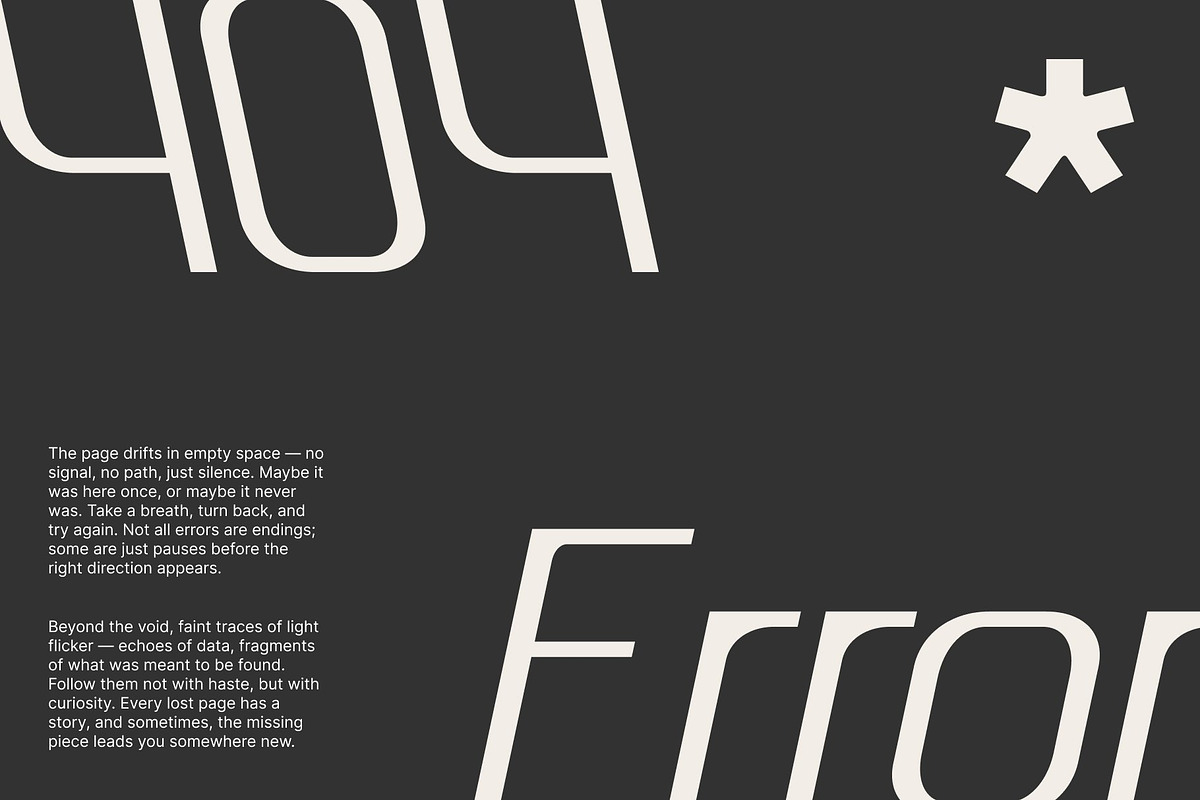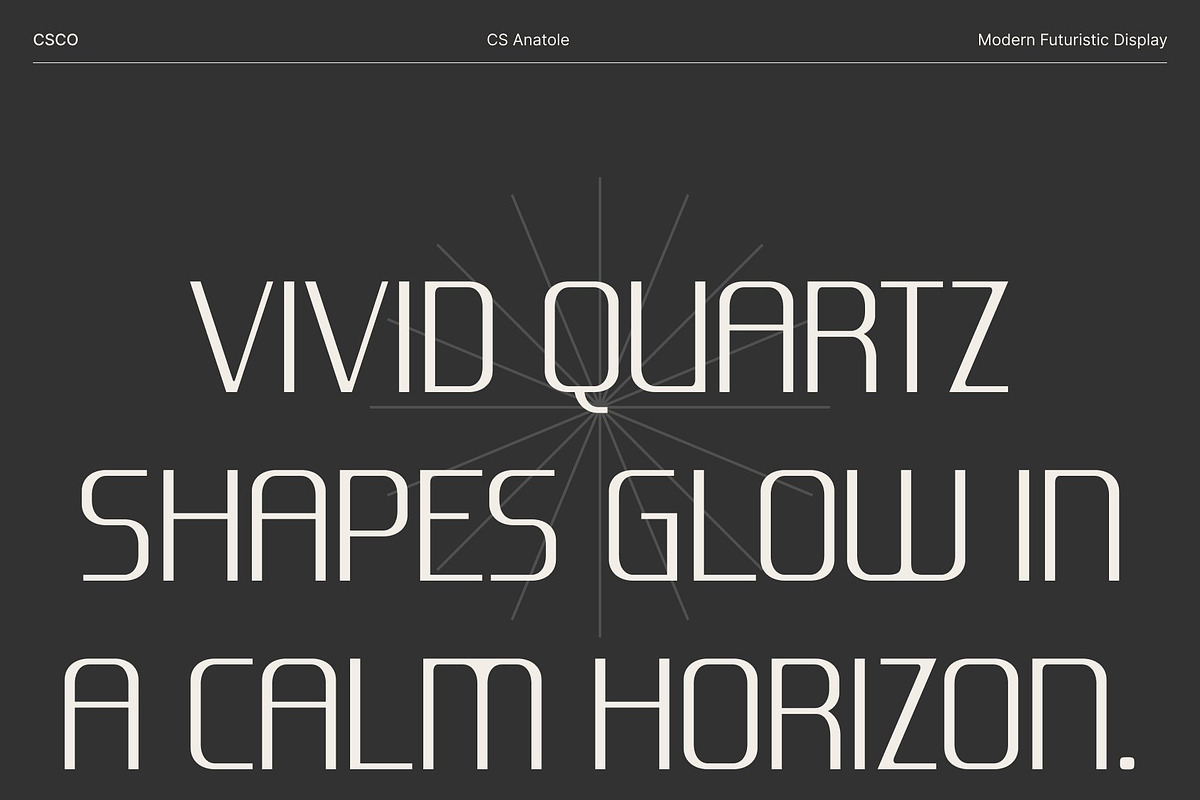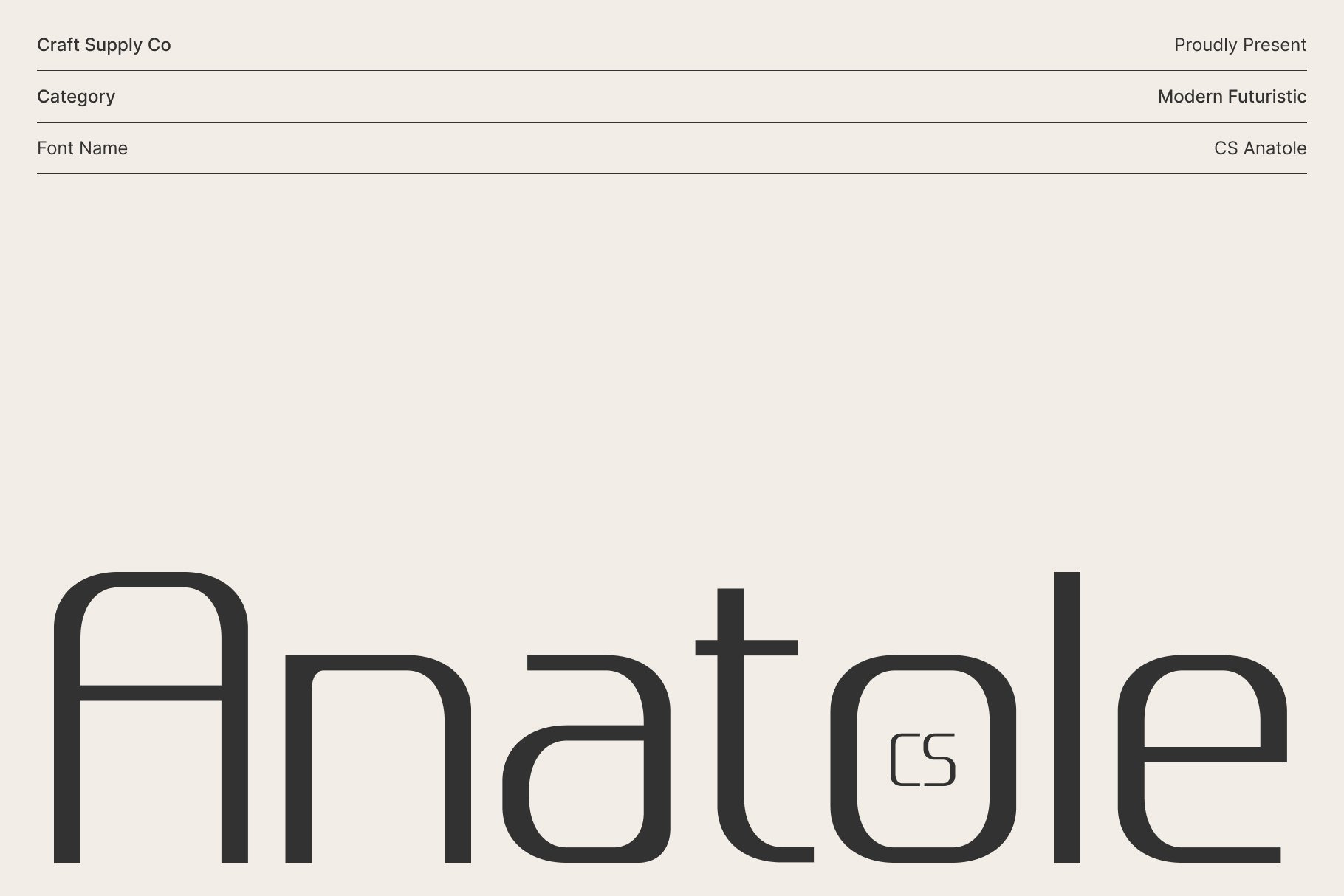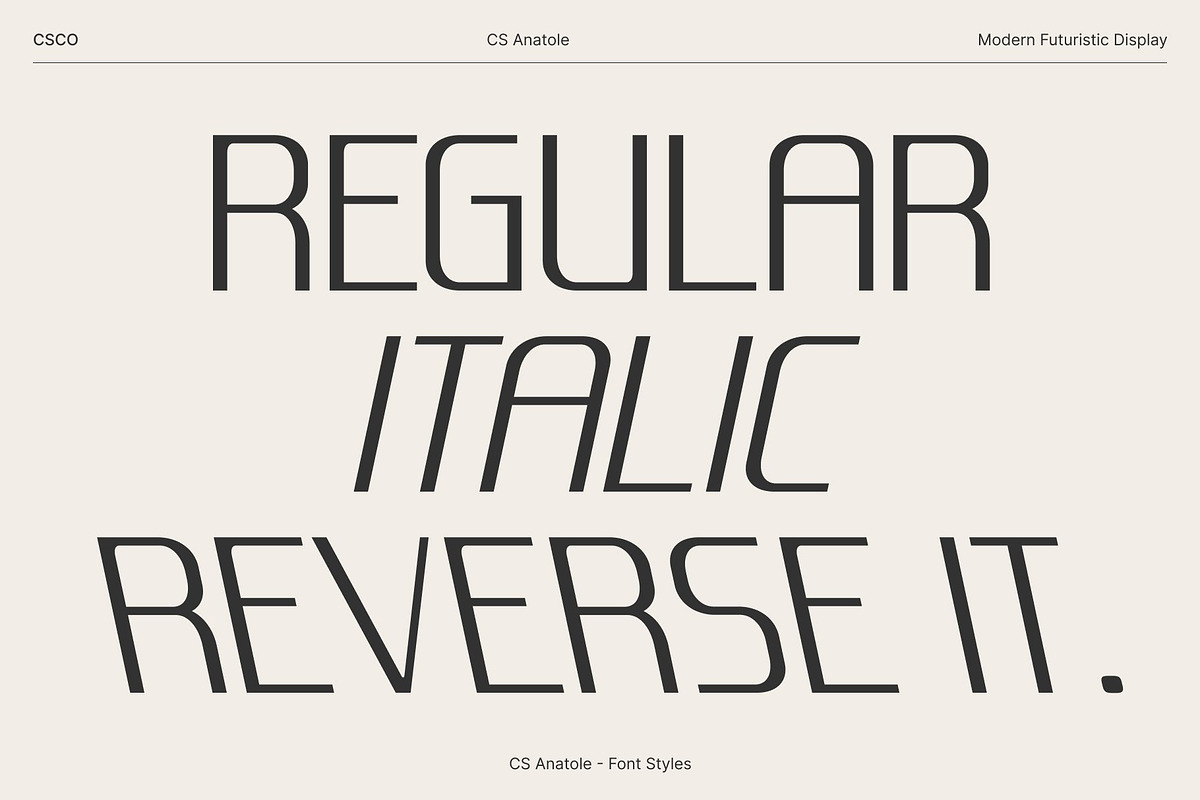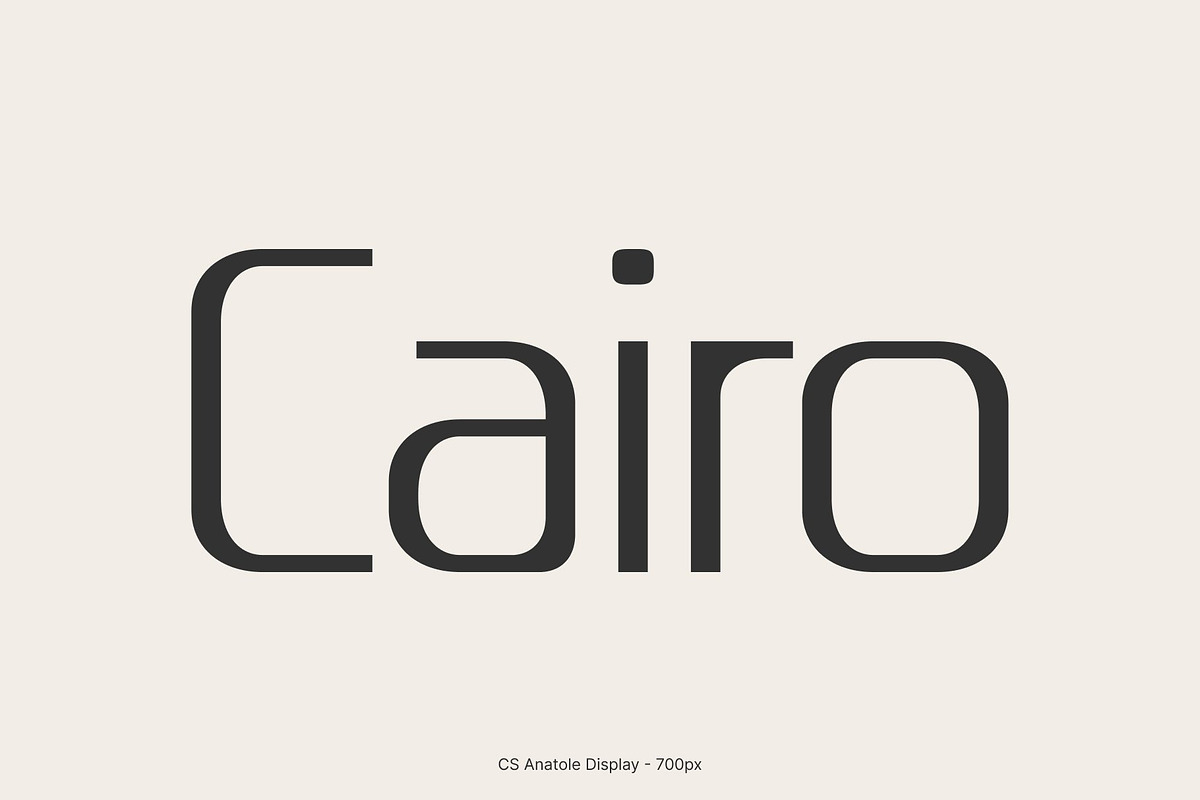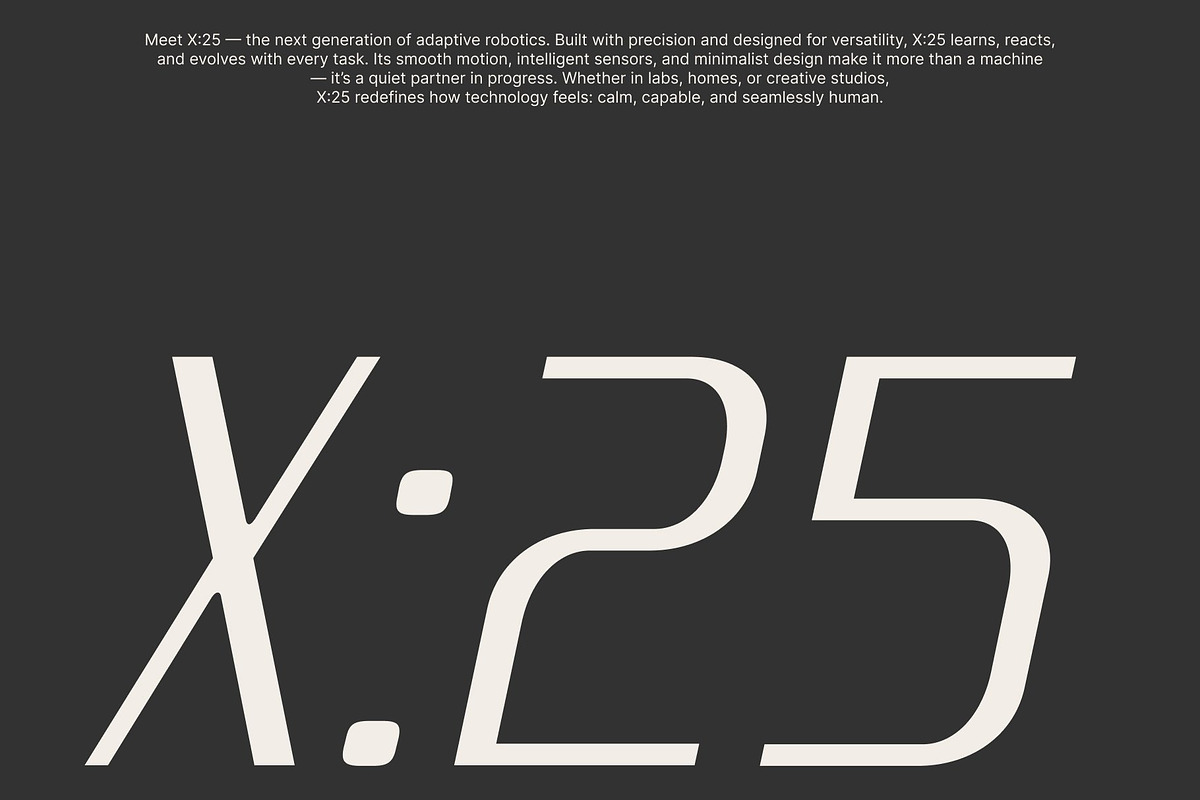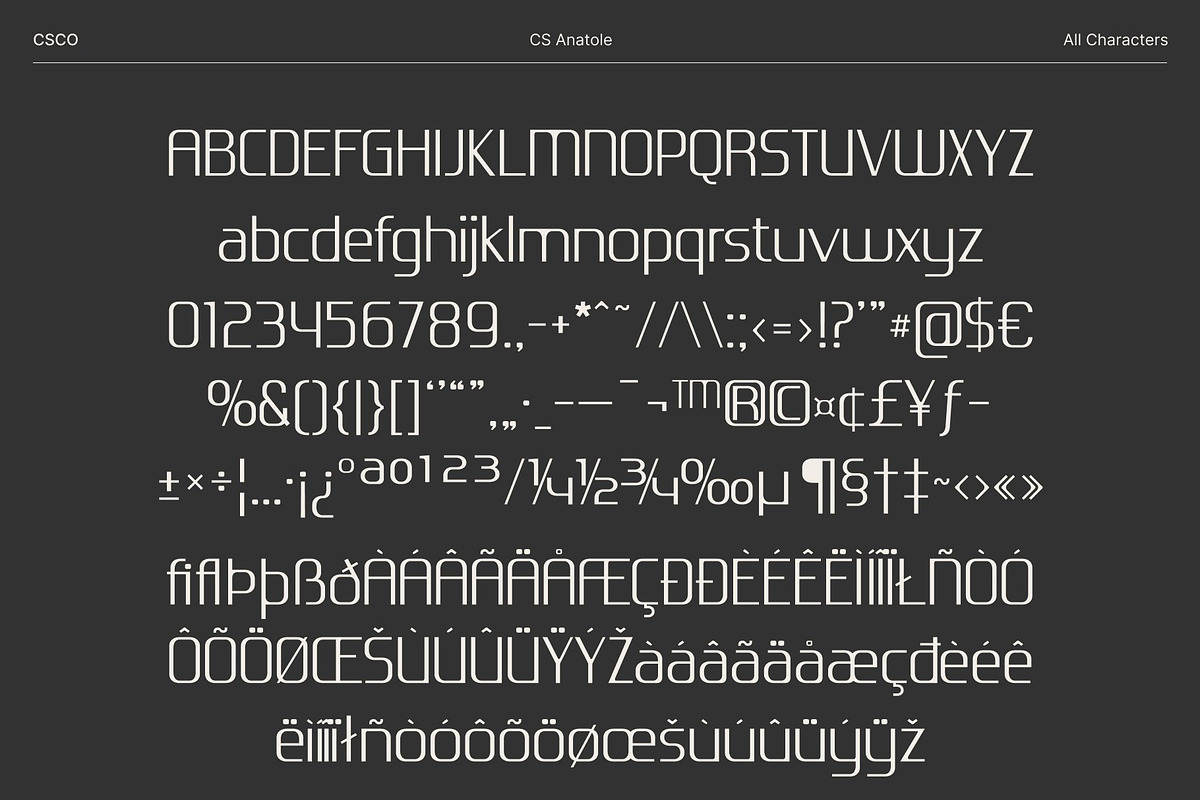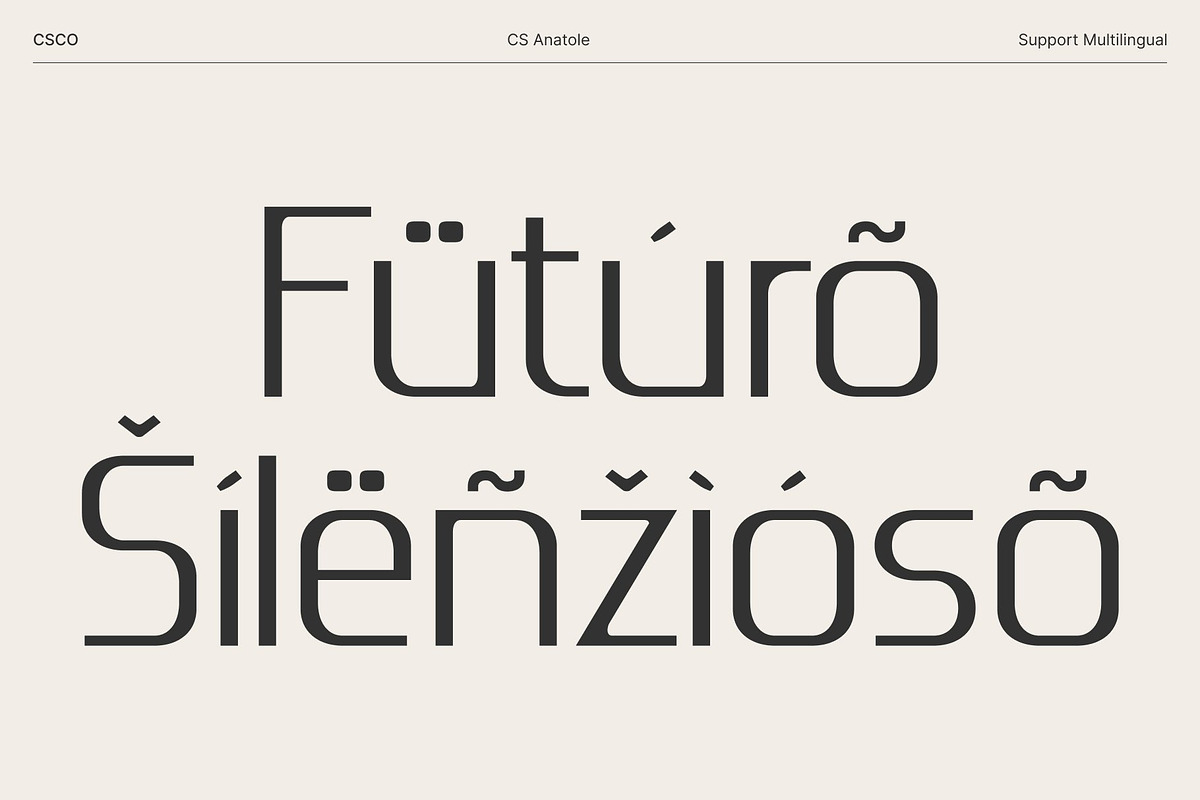
CS Anatole – Modern Futuristic Font
CS Anatole: Where Futurism Meets Modern Elegance
Modern Futuristic Display Font This is a modern futuristic font designed to capture attention with its sleek geometry, sans serif style and contemporary energy. Its clean yet expressive letterforms embody precision and progress, reflecting the aesthetics of cutting-edge technology and forward-thinking design. Perfect for projects that demand a modern, innovative identity.
Striking Shapes with Refined Balance Each character in this font is crafted with sharp precision and balanced structure, combining futuristic minimalism with a stylistic edge. The bold spacing and streamlined shapes give it a dynamic, high-tech feel, while maintaining clarity and legibility. This harmony between form and function makes it ideal for both digital and print applications.
Perfect for Branding and Visual Impact Whether used in logos, posters, or bold headline compositions, this font ensures an impactful presentation. Its modern aesthetic enhances brand recognition and visual appeal, making it the perfect tool for businesses and designers who want to project a clean, confident, and forward-looking image.
Versatile for Contemporary Design Needs This font’s futuristic character makes it suitable for a variety of creative uses from tech branding and digital interfaces to editorial layouts and experimental artwork. It delivers a sense of modern sophistication and innovation, ensuring your designs stay ahead of the curve.